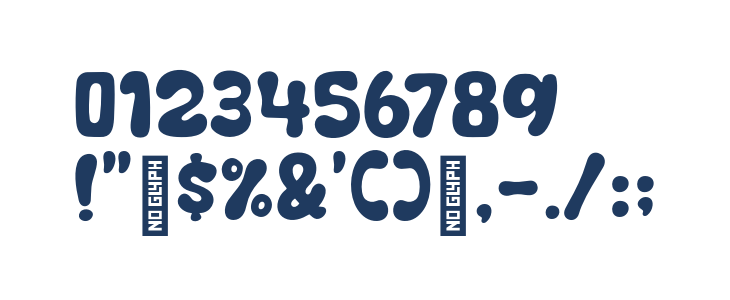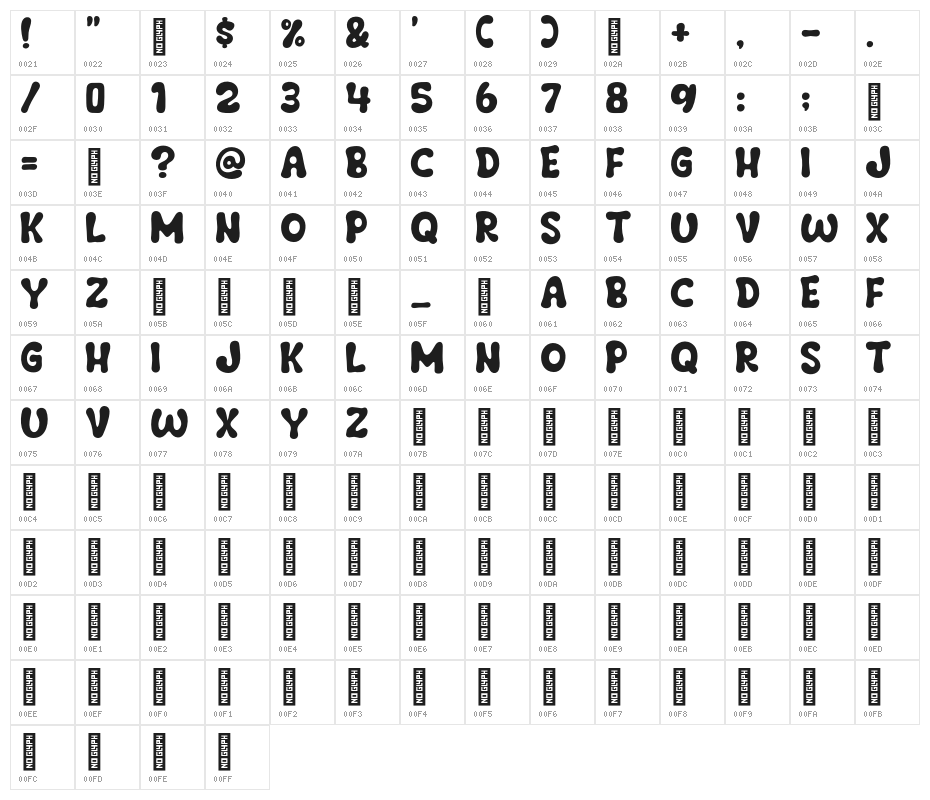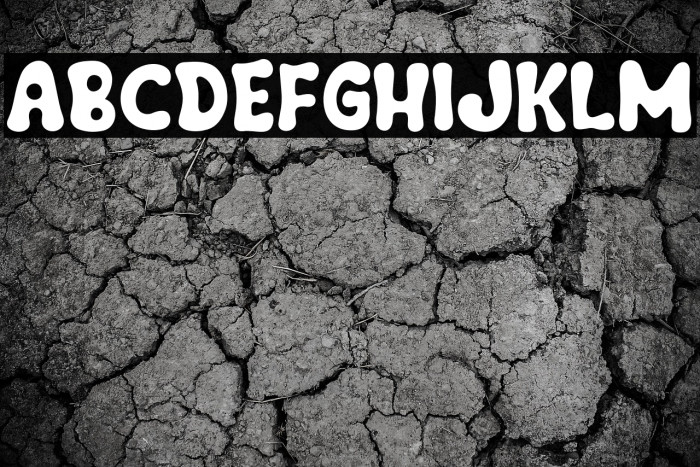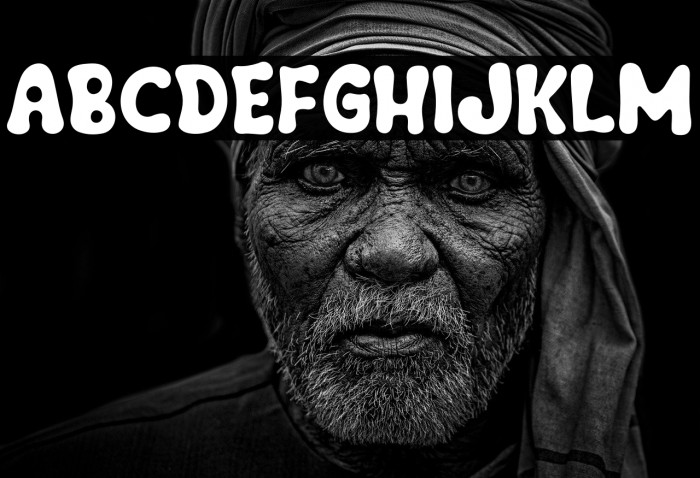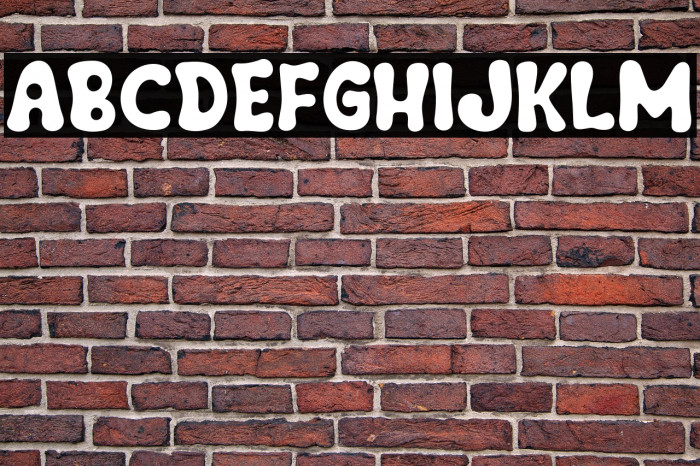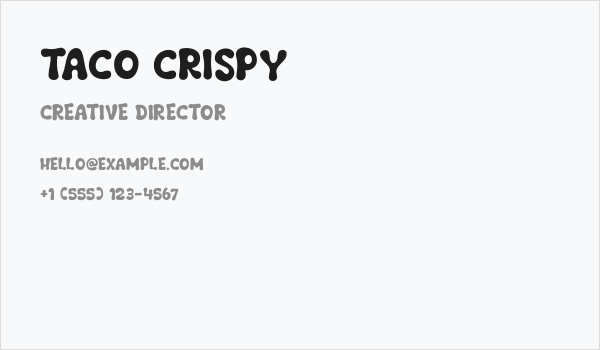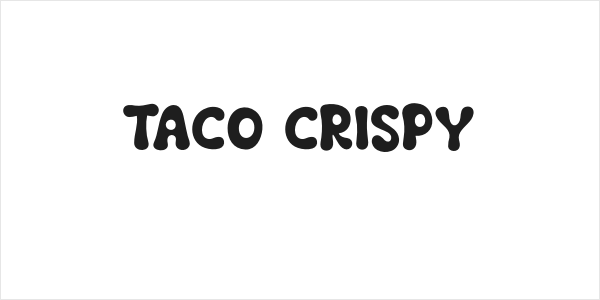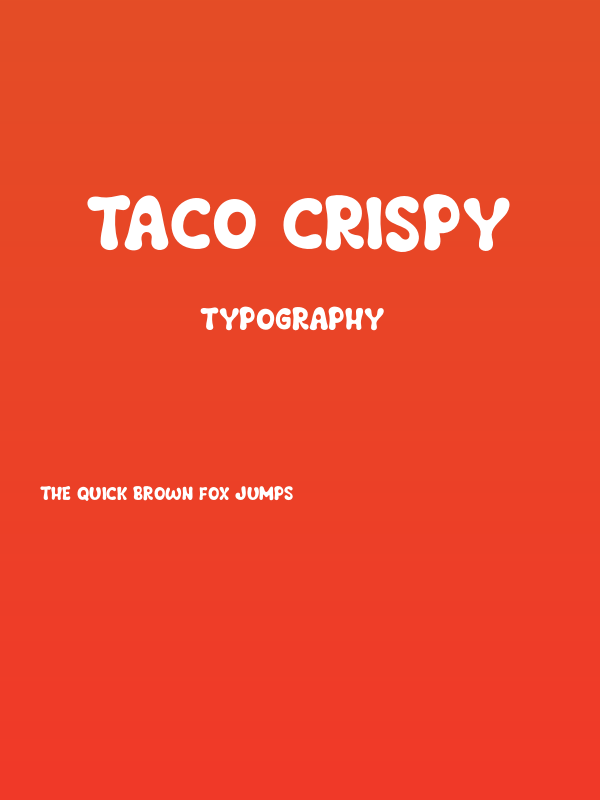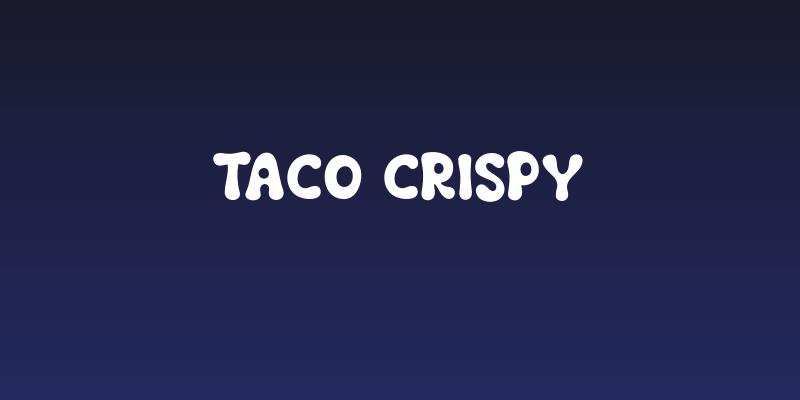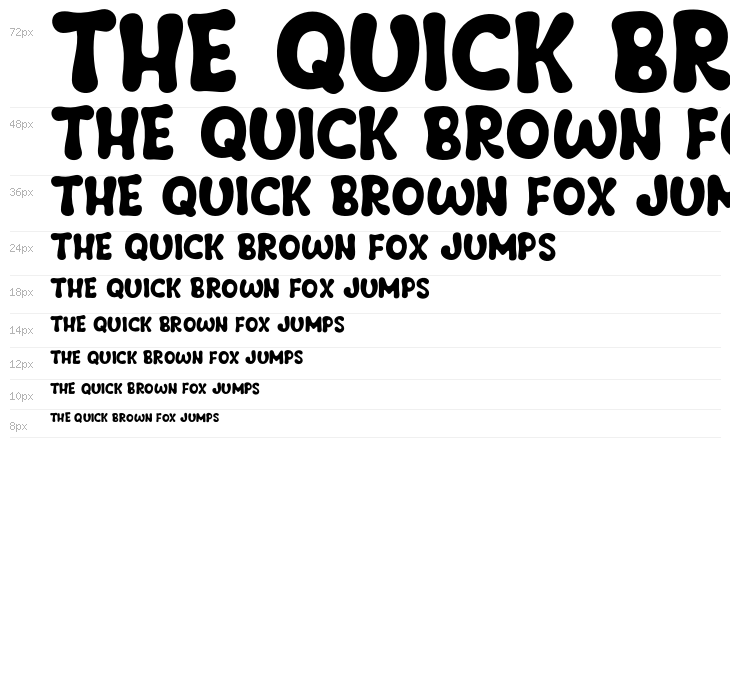
Taco Crispy Font
Taco Crispy Description
This playful and bold font features rounded, bubbly characters that convey a sense of fun and creativity. The letters are thick and have a consistent stroke width, giving them a strong presence on the page. The overall design is reminiscent of hand-drawn or cartoon styles, making it ideal for projects that aim to capture attention with a whimsical touch. The numbers and special characters maintain the same playful aesthetic, ensuring a cohesive look across all text elements. This font is perfect for designs that require a lively and engaging appearance.
Overall StylePlayful, Whimsical
Proposed ProjectsIdeal for children's books, playful branding, posters, and creative advertising.